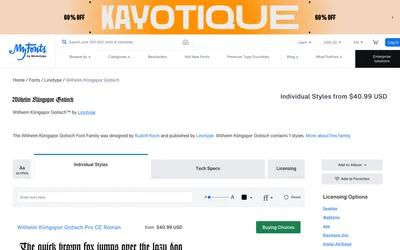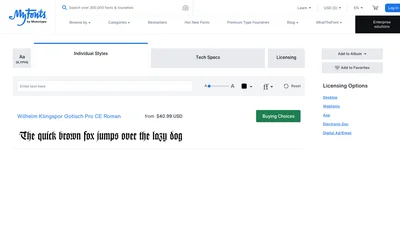
Heroine vs Wilhelm Klingspor Gotisch
Heroine and Wilhelm Klingspor Gotisch are both display typefaces sharing a display foundation. Where Heroine leans transitional, editorial, Wilhelm Klingspor Gotisch brings blackletter, elegant. Compare which suits your Editorial project.
| Feature | Heroine | Wilhelm Klingspor Gotisch |
| Classification | display | display |
| Source | Letters from Sweden | Linotype |
Recommended: Heroine
- transitional, editorial design character
- Suited for Headlines and Packaging
- From Letters from Sweden
Consider: Wilhelm Klingspor Gotisch
- blackletter, elegant design character
- Suited for Display
- From Linotype